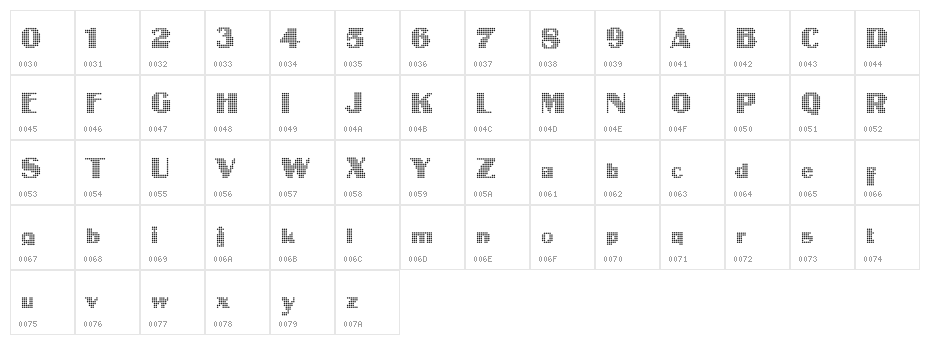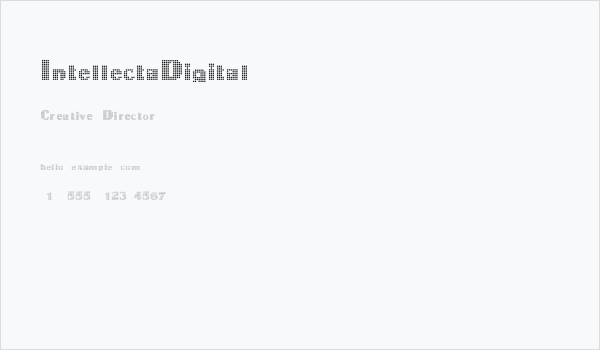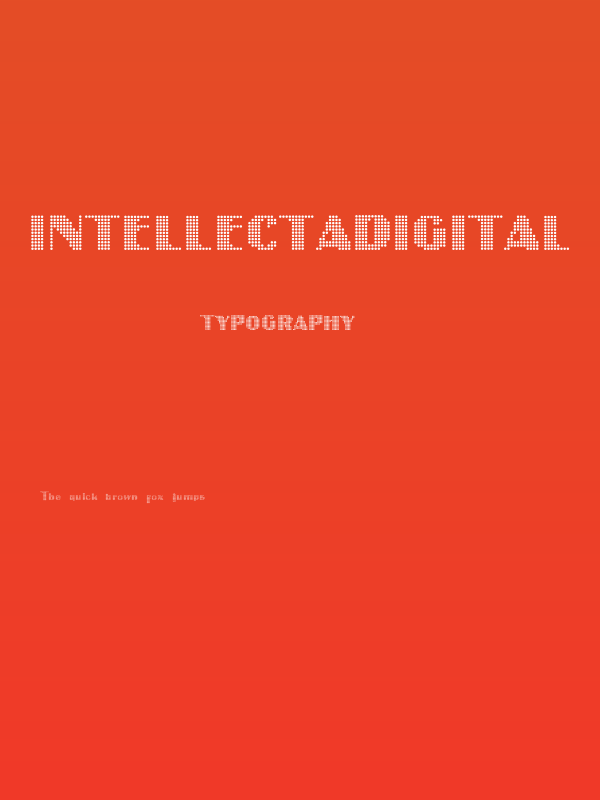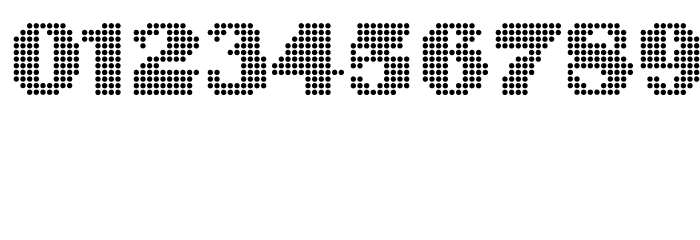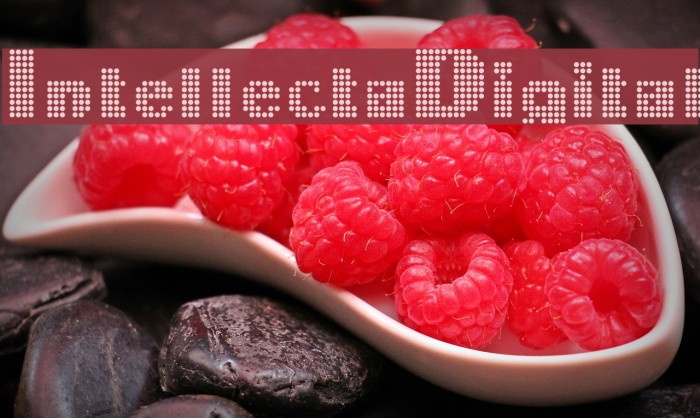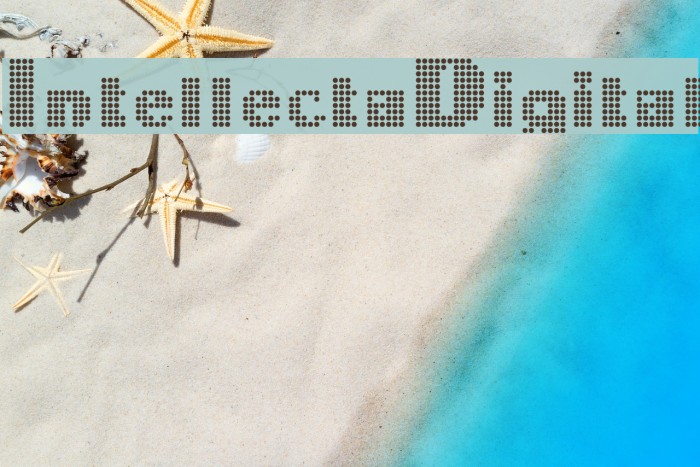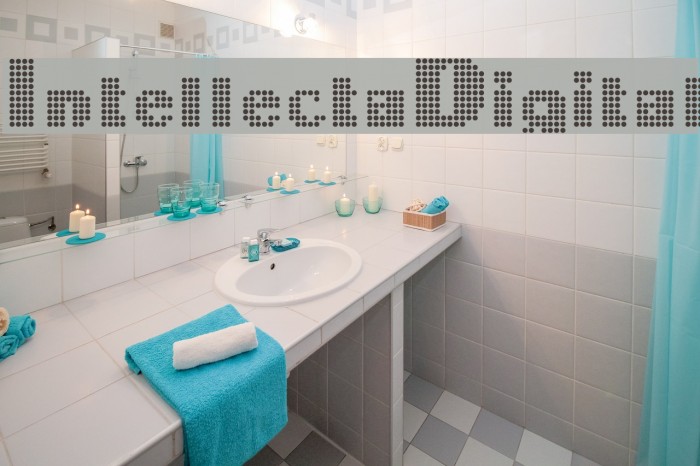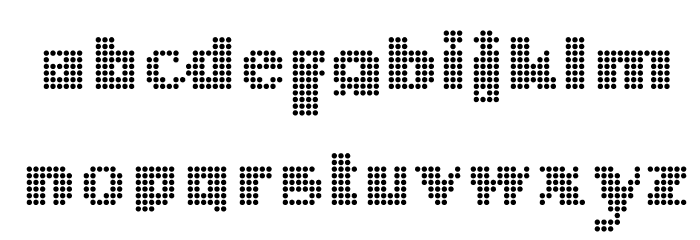
IntellectaDigital Font
IntellectaDigital Description
This font features a unique dot matrix style, where each character is constructed from a series of evenly spaced dots. The design is reminiscent of digital displays and retro computing, giving it a distinct technological and vintage feel. The uppercase and lowercase letters maintain a consistent height, while the numbers and special characters follow the same dot pattern, ensuring uniformity across all glyphs. The font's geometric precision and uniform dot size contribute to its modern and structured appearance, making it both eye-catching and legible.
| Overall Style | Vintage |
| Use Case | Logos, Headlines, Posters |
| Proposed Projects | Ideal for digital-themed projects, retro designs, tech branding, and creative posters. |